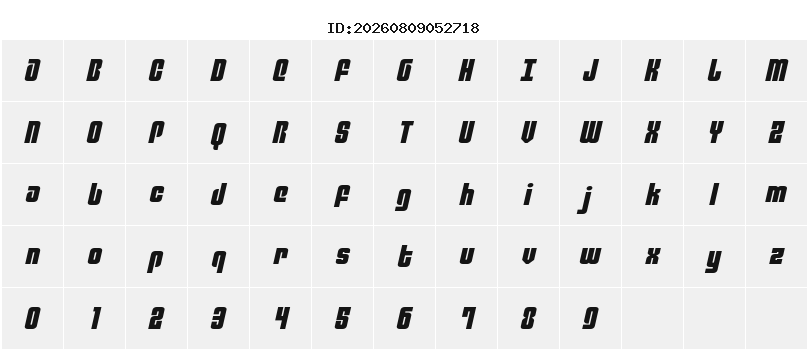
Philadelphia Expanded Semi-Italic Preview
About Philadelphia Expanded Semi-Italic.ttf
Philadelphia Expanded Semi-Italic.ttf is a modern, elegant sans-serif font designed for ultimate readability and visual harmony. Perfect for branding, headlines, web design, and print materials.